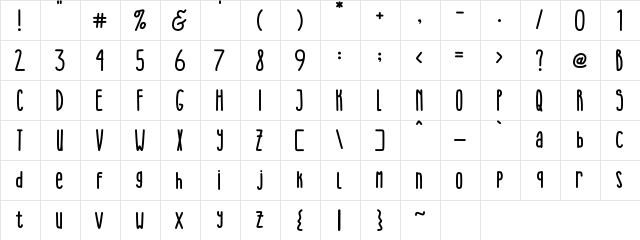
RedHead Snake Regular
Design Context for RedHead Snake Typeface
RedHead Snake offers clean, dependable letterforms without strong stylistic allegiance, making it a practical choice for designers who need flexibility.